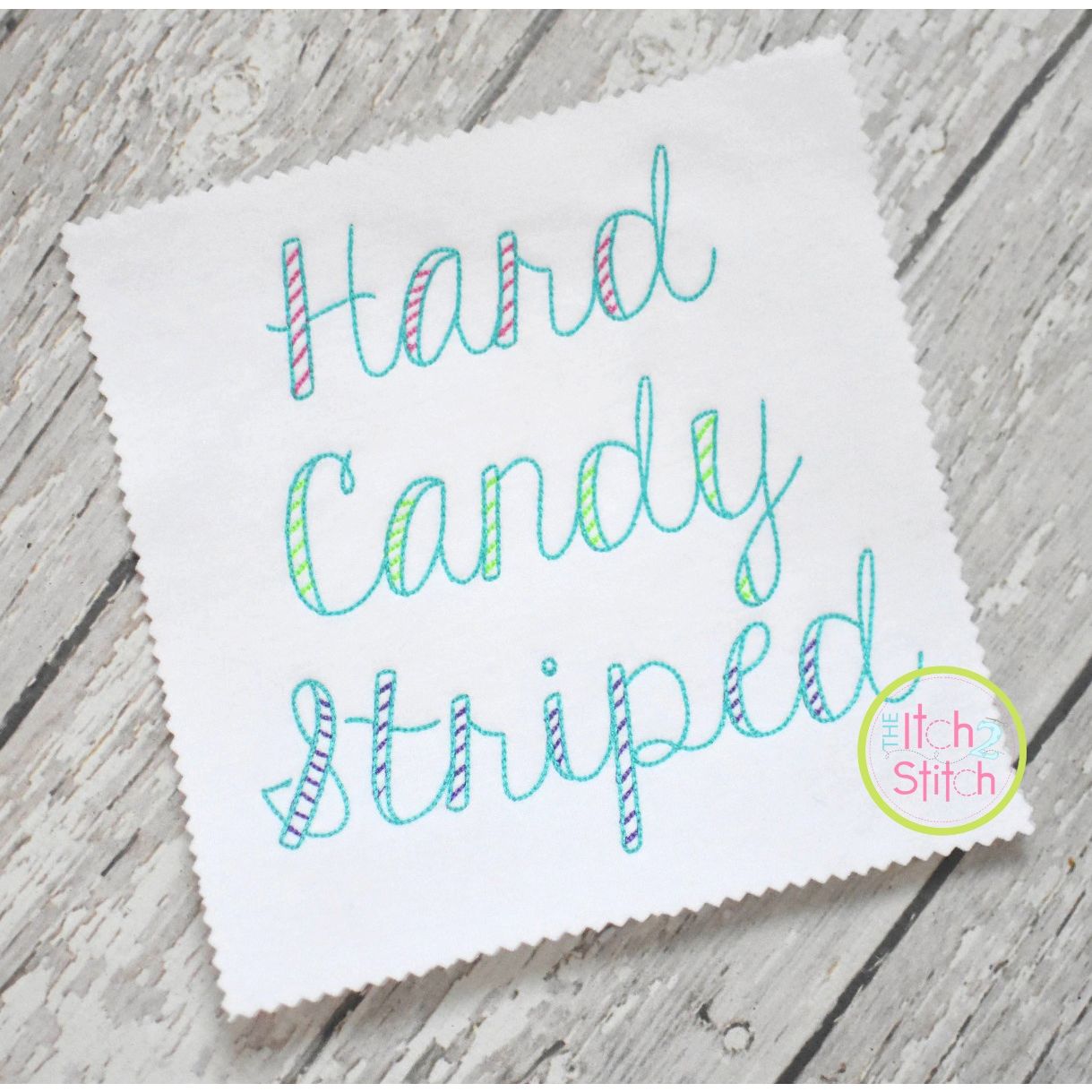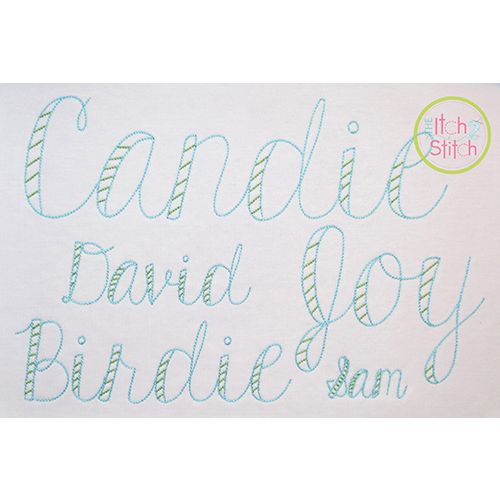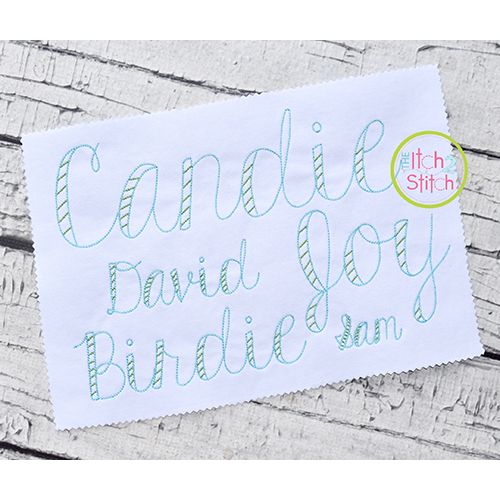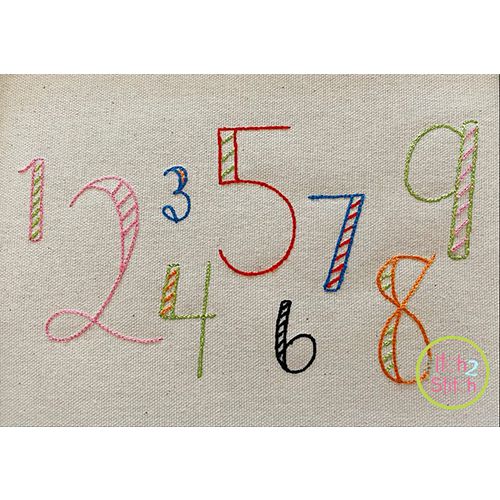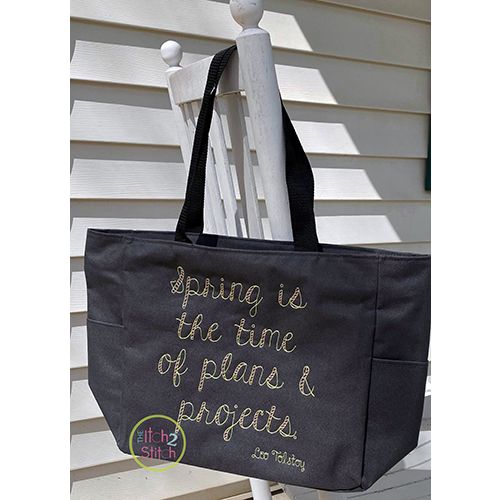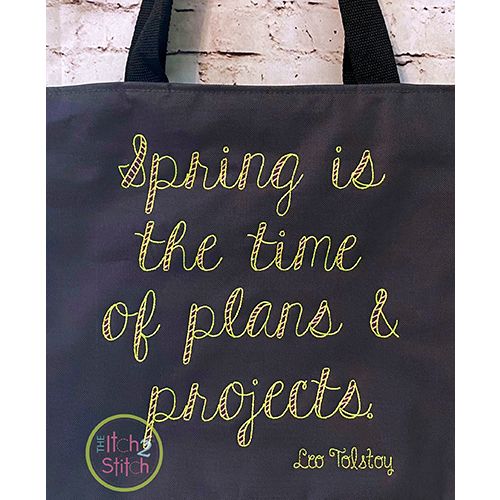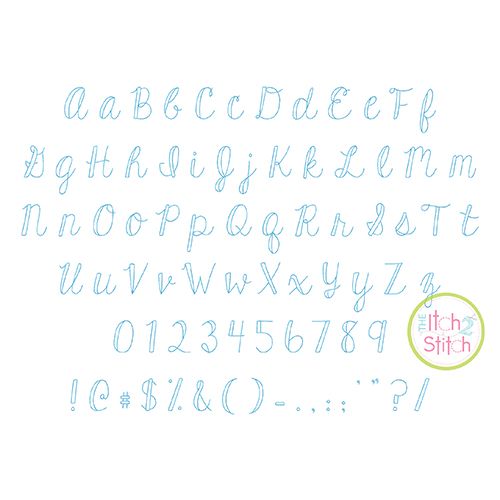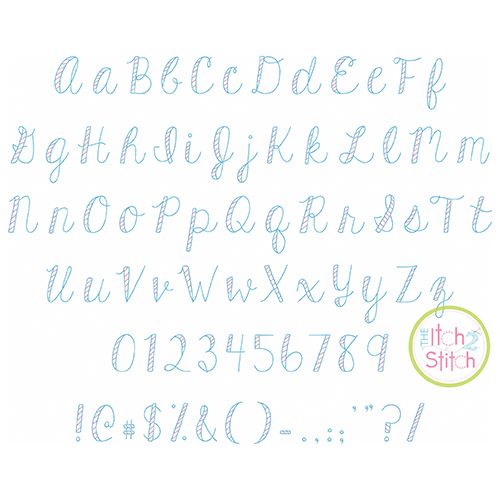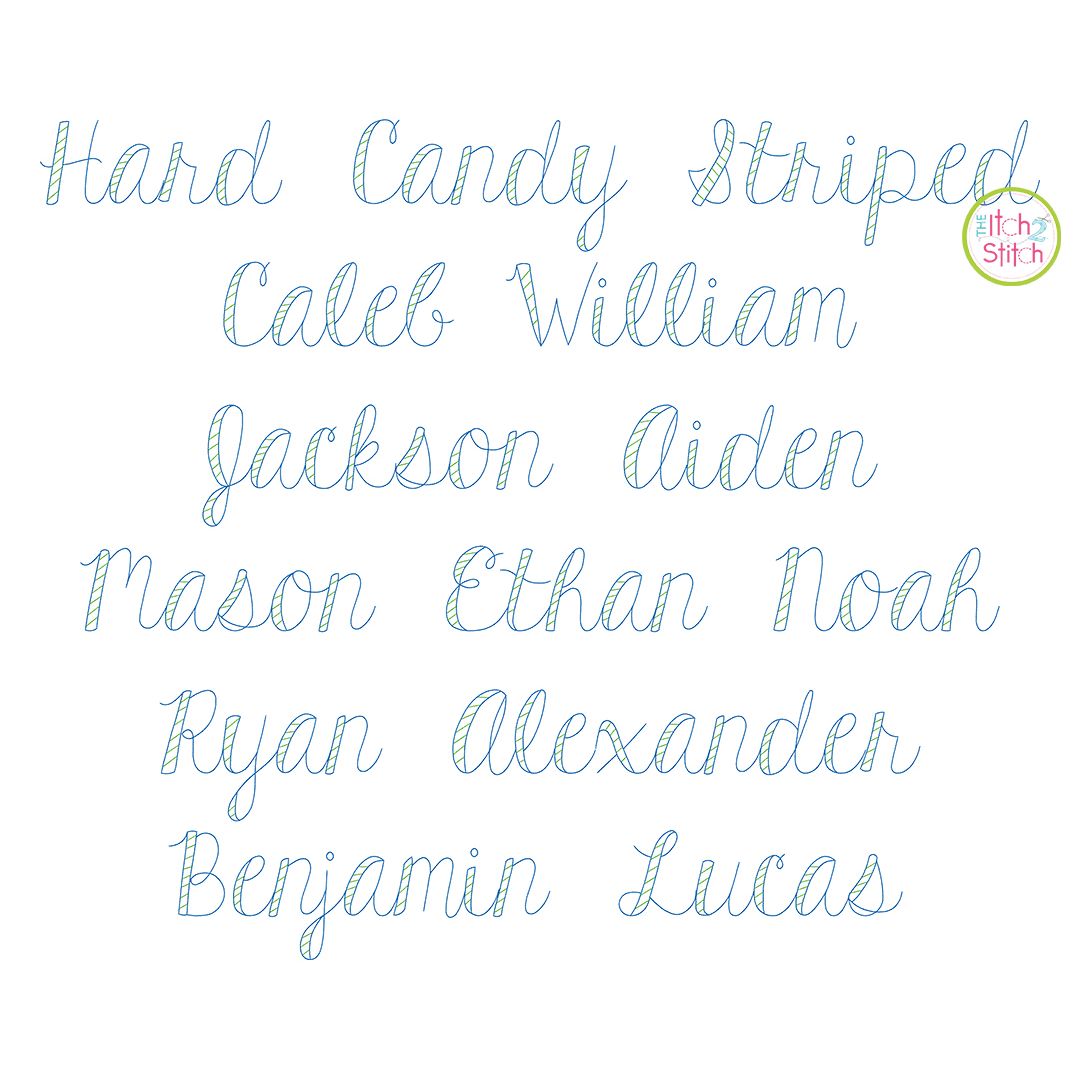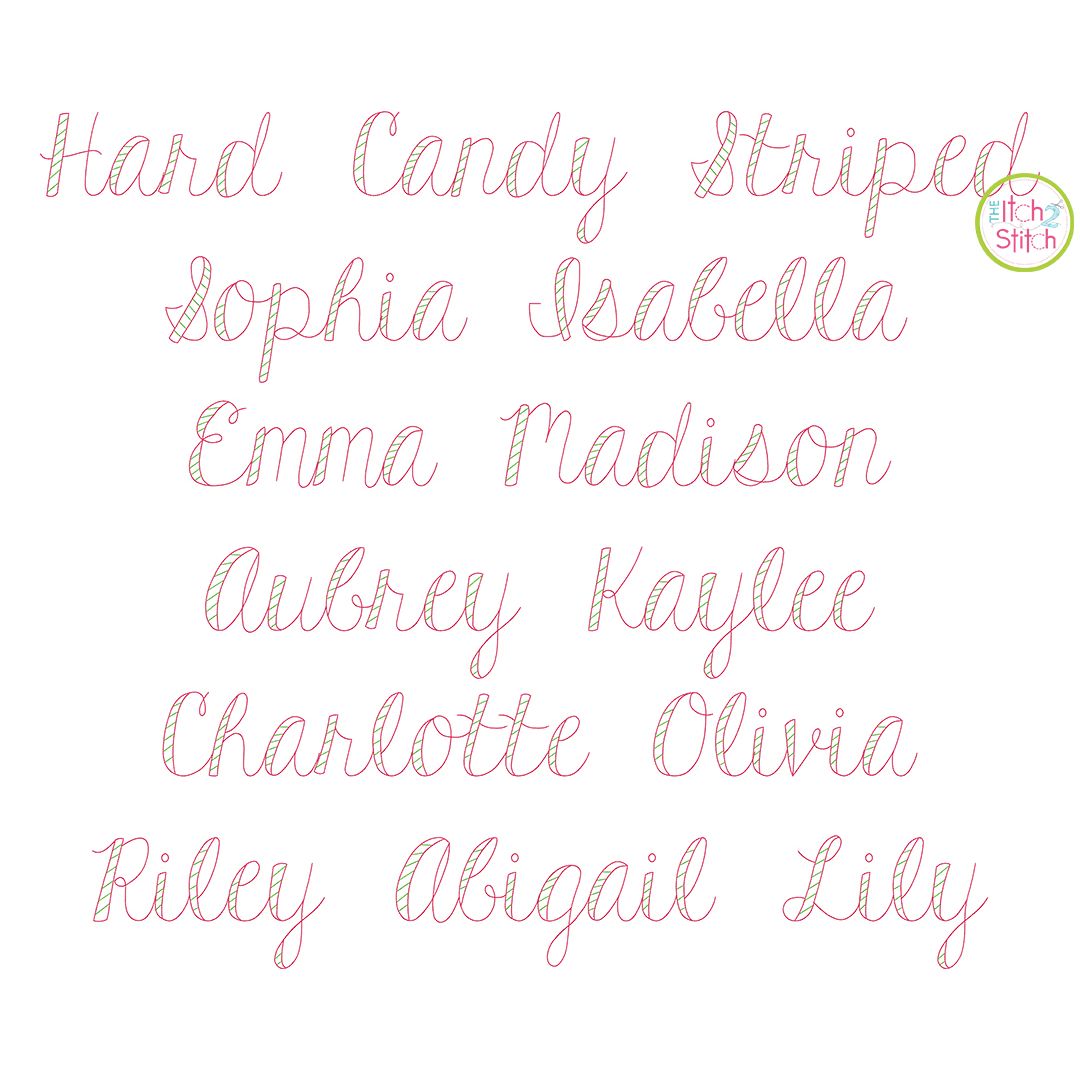
Hard Candy Striped Bean Stitch Embroidery Font
This listing includes TWO different versions of the font: Hard Candy Striped Bean Stitch is a two-color font; Hard Candy Open Bean Stitch is a one-color font.
Both versions are a five-pass backstitch font originally designed to stitch on fabric, not card stock.